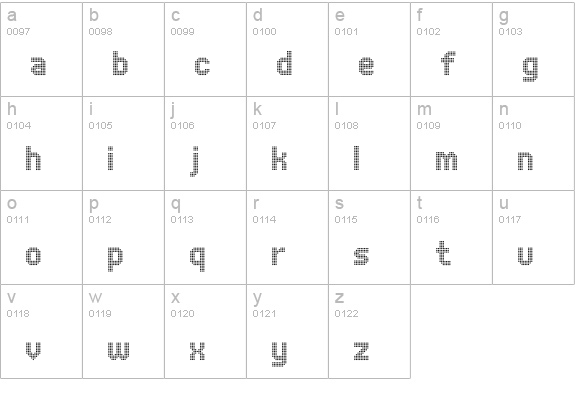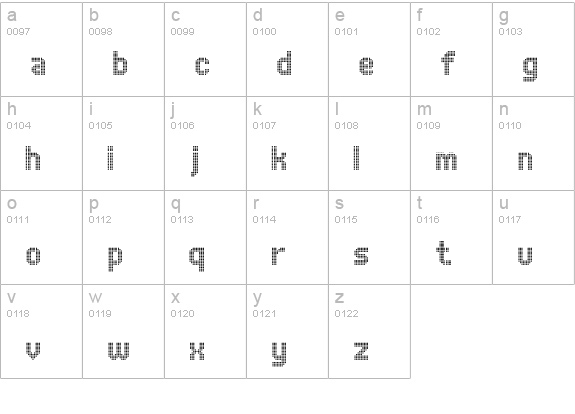
Introducing UNDA-Circle, a mesmerizing font that encapsulates the perfect blend of modernity and elegance. With its sleek and rounded letterforms, this typeface effortlessly captures attention and adds a touch of sophistication to any design project. UNDA-Circle is the epitome of versatility, making it ideal for a wide range of applications. Whether you're designing a logo, creating eye-catching headlines, or even crafting a unique brand identity, this font will surely elevate your work to new heights. What sets UNDA-Circle apart is not only its impeccable design but also its accessibility. This font is freely available to download at FontsMarket.com, ensuring that everyone can experience its beauty and unleash their creativity without any limitations. The carefully crafted letterforms of UNDA-Circle showcase a harmonious balance between smooth curves and precise geometry. Every character is meticulously designed to create a visually stunning and cohesive typeface that exudes professionalism and creativity. The versatility of UNDA-Circle extends beyond its captivating appearance. This font offers a wide range of weights and styles, allowing you to experiment and find the perfect fit for your project. Whether you prefer a bold and impactful look or a more subtle and refined approach, UNDA-Circle has got you covered. With its clean and minimalist aesthetic, UNDA-Circle effortlessly adapts to any design concept, whether it's a modern tech startup, a trendy fashion brand, or a sleek and sophisticated magazine layout. Its timeless appeal ensures that your designs will remain stylish and relevant for years to come. UNDA-Circle is not just a font, but a gateway to limitless creativity. So why wait? Download this remarkable font for free at FontsMarket.com and let your imagination run wild. Unleash the full potential of your designs with UNDA-Circle, the font that combines elegance, versatility, and accessibility in one remarkable package.